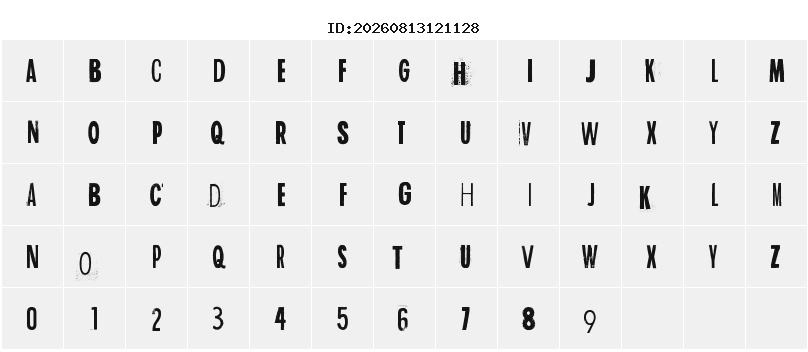
Rediscovered Preview
• Font Name: Rediscovered
• Designer: junkohanhero
About Rediscovered.ttf
Rediscovered.ttf is a modern, elegant sans-serif font designed for ultimate readability and visual harmony. Perfect for branding, headlines, web design, and print materials.